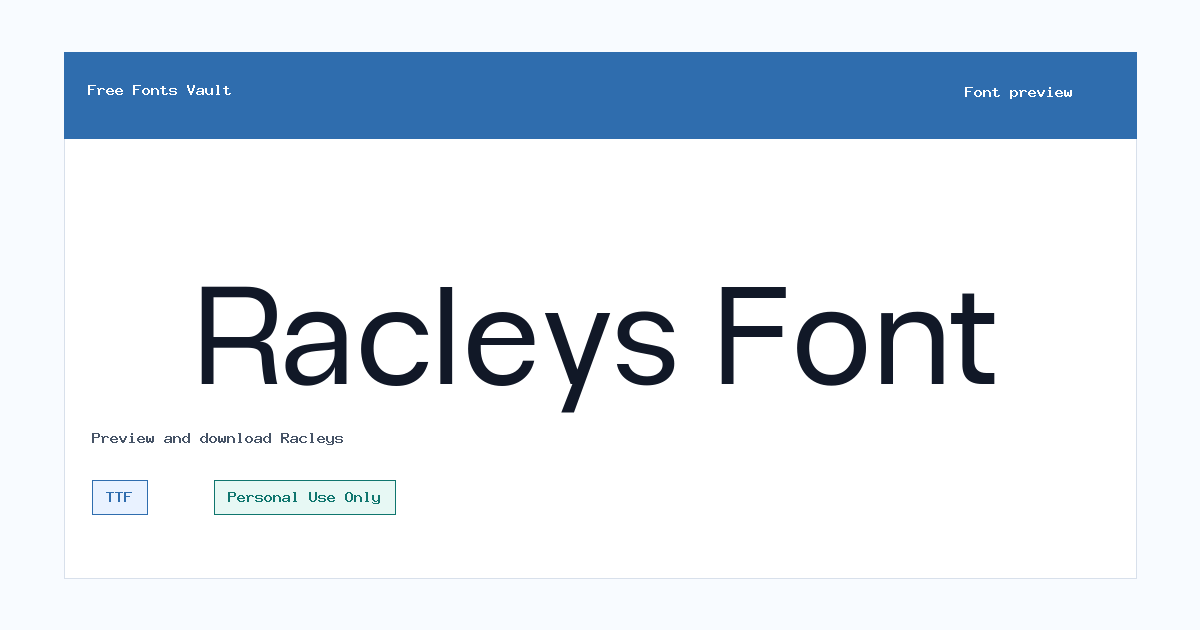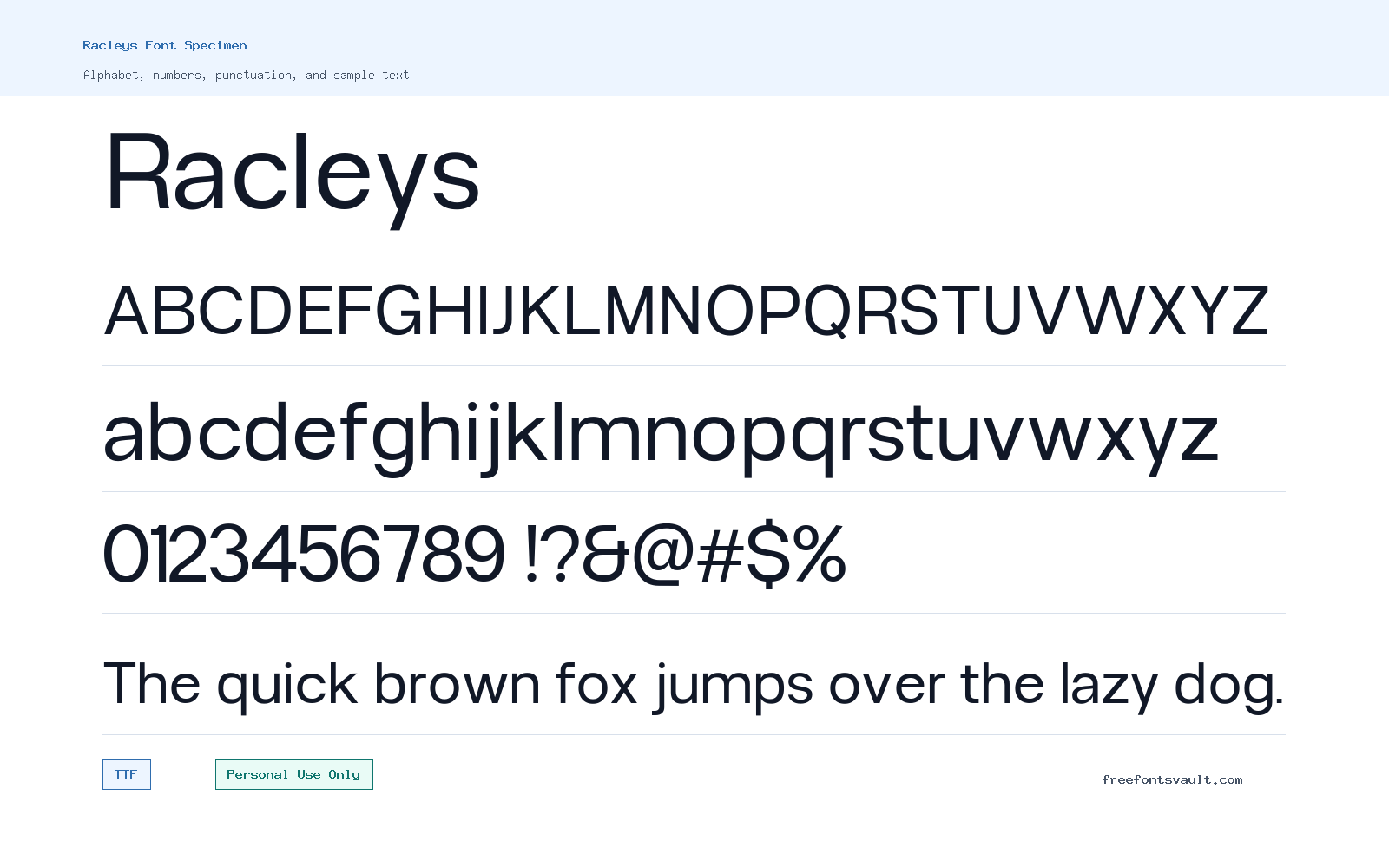
Racleys
Racleys font preview showing the family name
Racleys Font
Racleys font specimen showing alphabet, numbers, and sample text
Racleys font.
Racleys is a sans serif font family with a regular TTF style that works best when you need clean, direct lettering for personal design drafts, previews, and small branding experiments.
About Racleys Font
Racleys is presented as a sans serif font family, with the available style set as Regular at normal weight. That makes it easy to test in common design situations: headings, logo concepts, poster titles, social graphics, web mockups, and short pieces of display text. Because only one regular style is listed, it is best treated as a straightforward type choice rather than a broad multi-weight system. Use the preview tool to check how its letter spacing, x-height, curves, and overall balance feel in your own words before using it in a finished design.
For logo work, Racleys can be useful during the concept stage when you want a simple sans serif base to explore wordmarks or name treatments. Try it with brand names, initials, short slogans, and navigation labels. If the project needs a wider identity system, test whether the regular weight gives enough contrast for large headlines, small captions, and mobile layouts. Since no bold, italic, or additional weights are listed, you may need to pair it with another type family for body text, emphasis, or hierarchy. For posters and social graphics, keep the wording short and give the letters enough space so the design does not depend on unsupported weights or heavy effects.
• Sans serif family style suited to clean headlines, logo drafts, layout previews, and short display text.
• Works best as a single-style design choice; pair it with a readable text font when a project needs longer paragraphs or stronger hierarchy.
• Useful for personal-use mockups, poster titles, social media designs, web layout trials, and early brand concept exploration.
• Personal logo concepts and wordmark experiments
• Poster headings and event-style title layouts
• Social media graphics with short text
• Website hero headings and UI mockups
• Brand presentation drafts and mood boards
• Testing simple sans serif typography in design software
What type of font is Racleys?
Racleys is listed as a sans serif font family. The available file is the regular style, which is useful for testing clean headings, logo drafts, and short display text.
Is Racleys good for long paragraphs?
It is better to test Racleys first in short text such as titles, names, and labels. Since only a regular style is listed, longer reading layouts may need a separate text font with more weights and proven readability.
What fonts pair well with Racleys?
For a safe pairing, use Racleys for headings and choose a simple, readable serif or neutral sans serif for body text. Keep the companion font quiet so the layout stays clear and balanced.